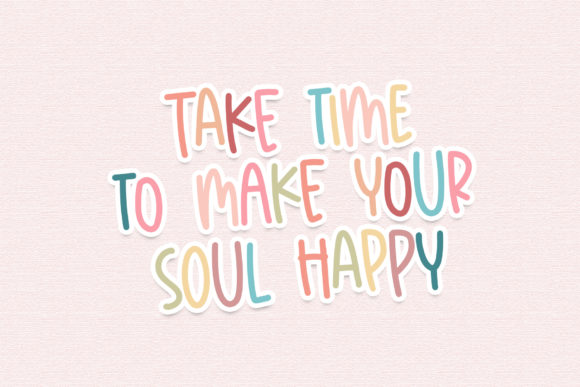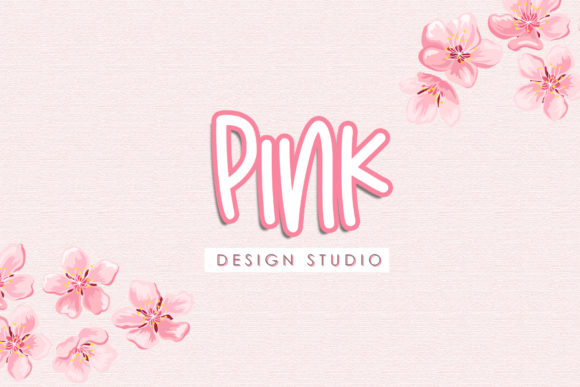
Sakura Blossom Font
db-ku.com - Script & Handwritten -- Sakura Blossom is a sweet and friendly handwritten font. Its natural and unique style makes it incredibly fitting to a large pool of designs. The only limit is your imagination!